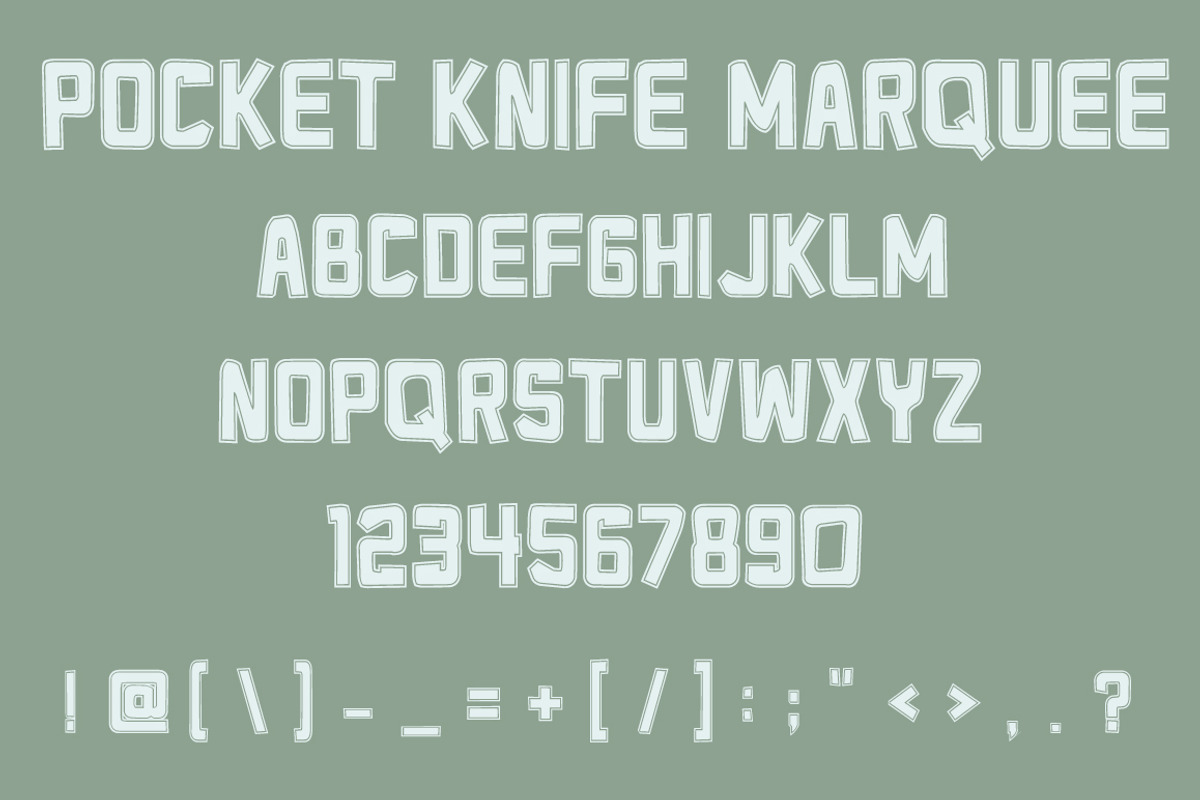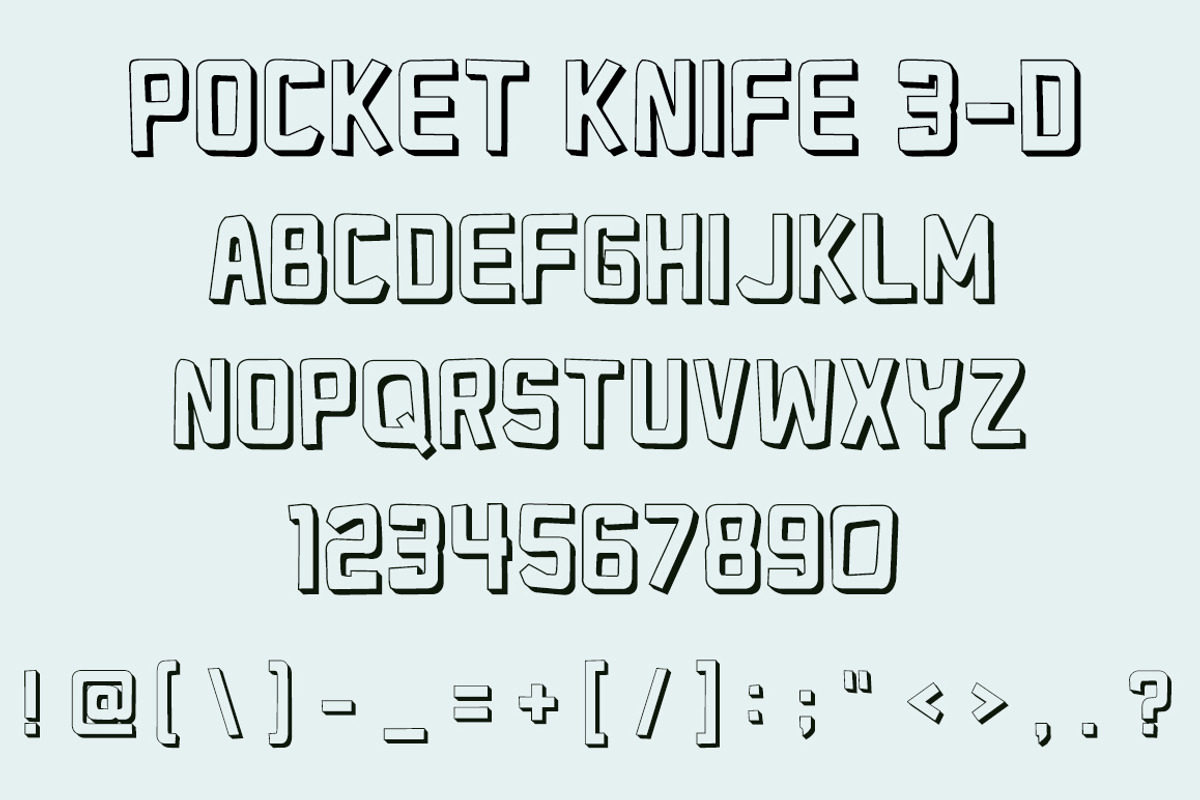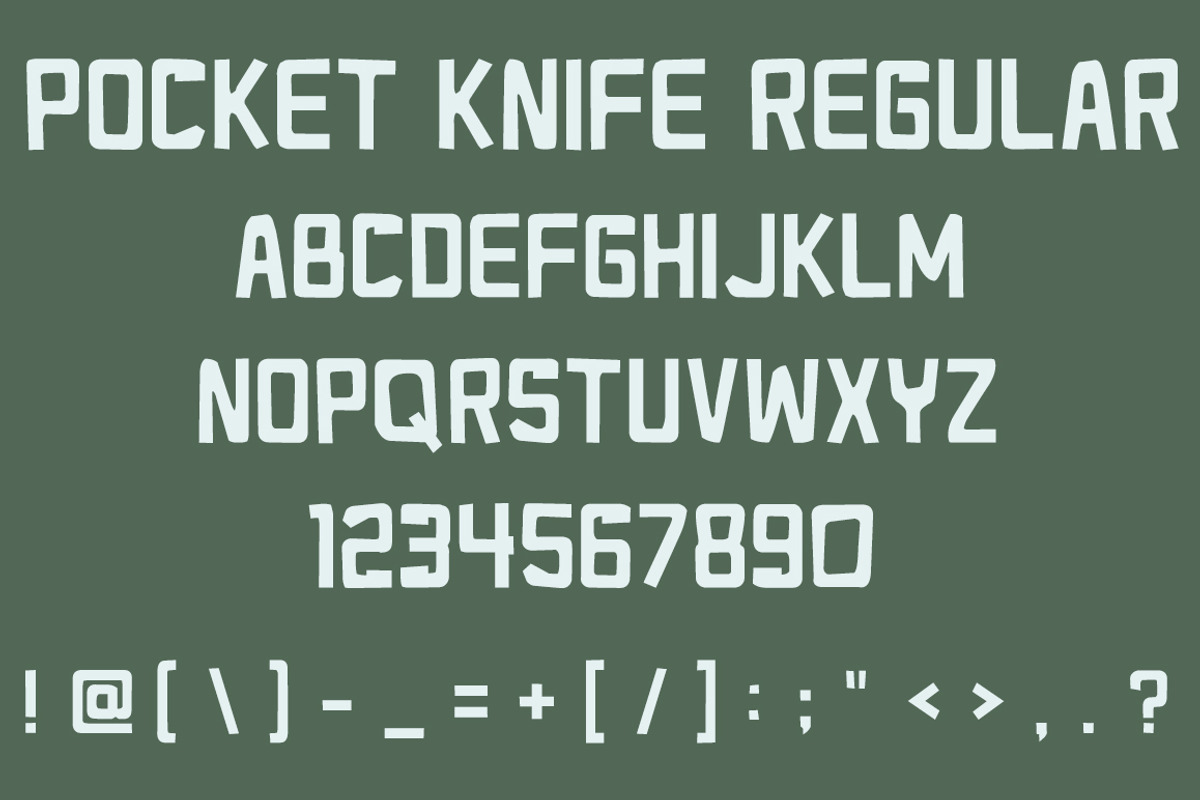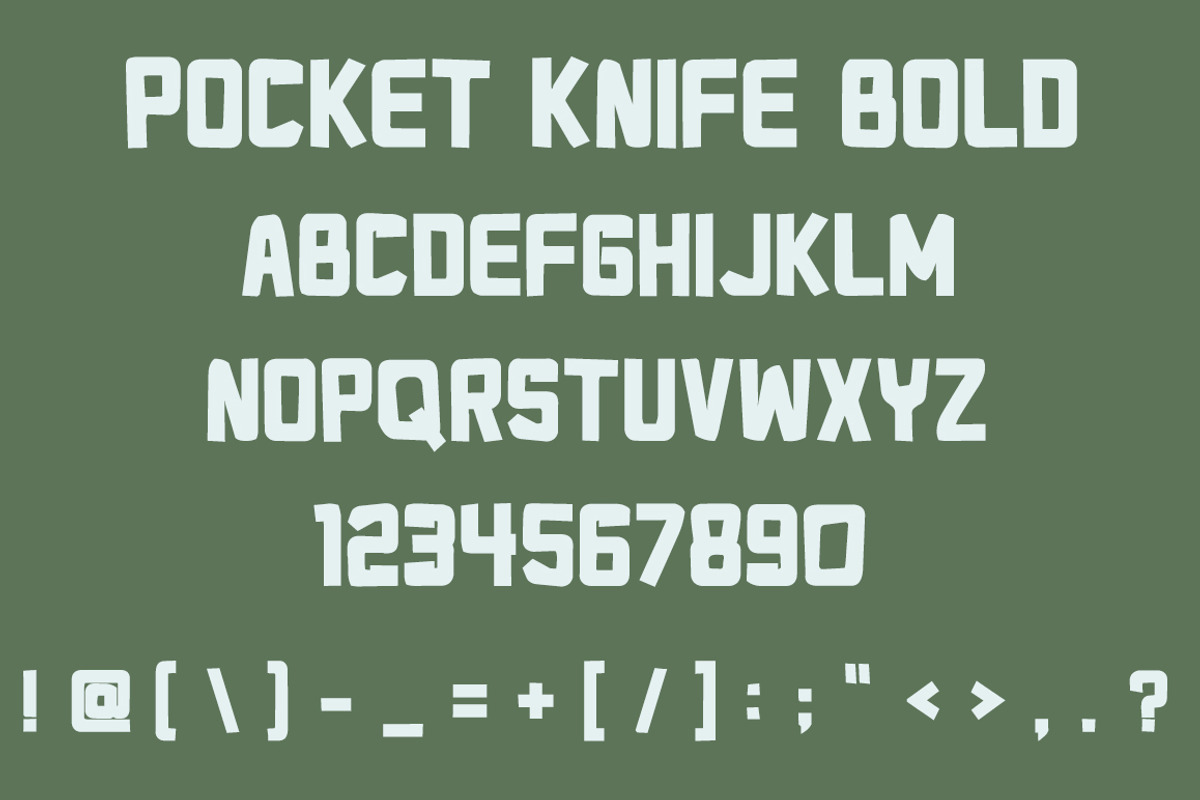
Pocket Knife - Font in Four Styles
Pocket Knife - Font in Four Styles by Blue Line Design is a font selected for branding, posters, packaging, typography.
Why Pocket Knife - Font in Four Styles is worth a look
Pocket Knife - Font in Four Styles by Blue Line Design fits naturally into Branding, posters, packaging, typography.